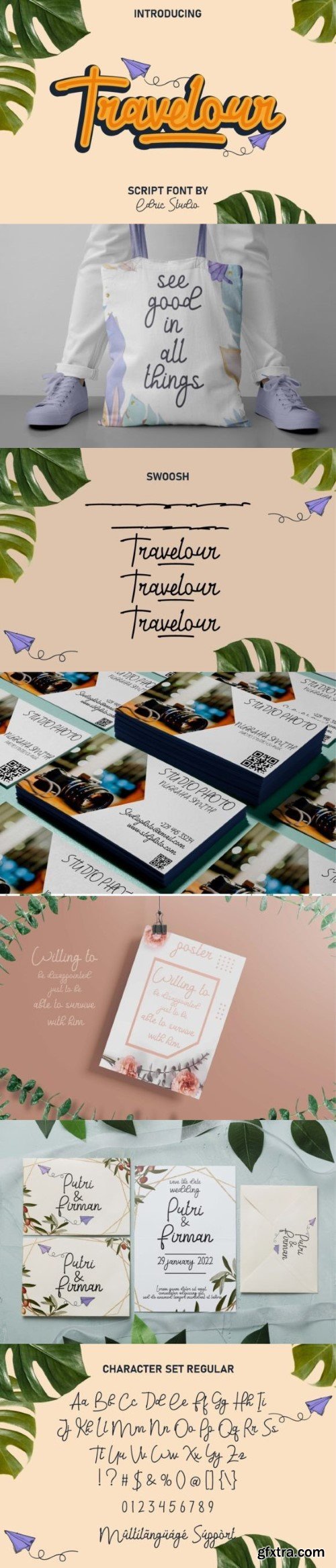
Travelour Playful Font is a monoline script font with a cheerful look, created by EdricStudio. This font uses a single brush line/ called monoline which is similar to the simple look of handwritten that is still easy to read and will be suitable for many industries, such as advertising, event organizing, fashion brands, handicrafts, kids stuff, perfume, photography, school, travel, and more!